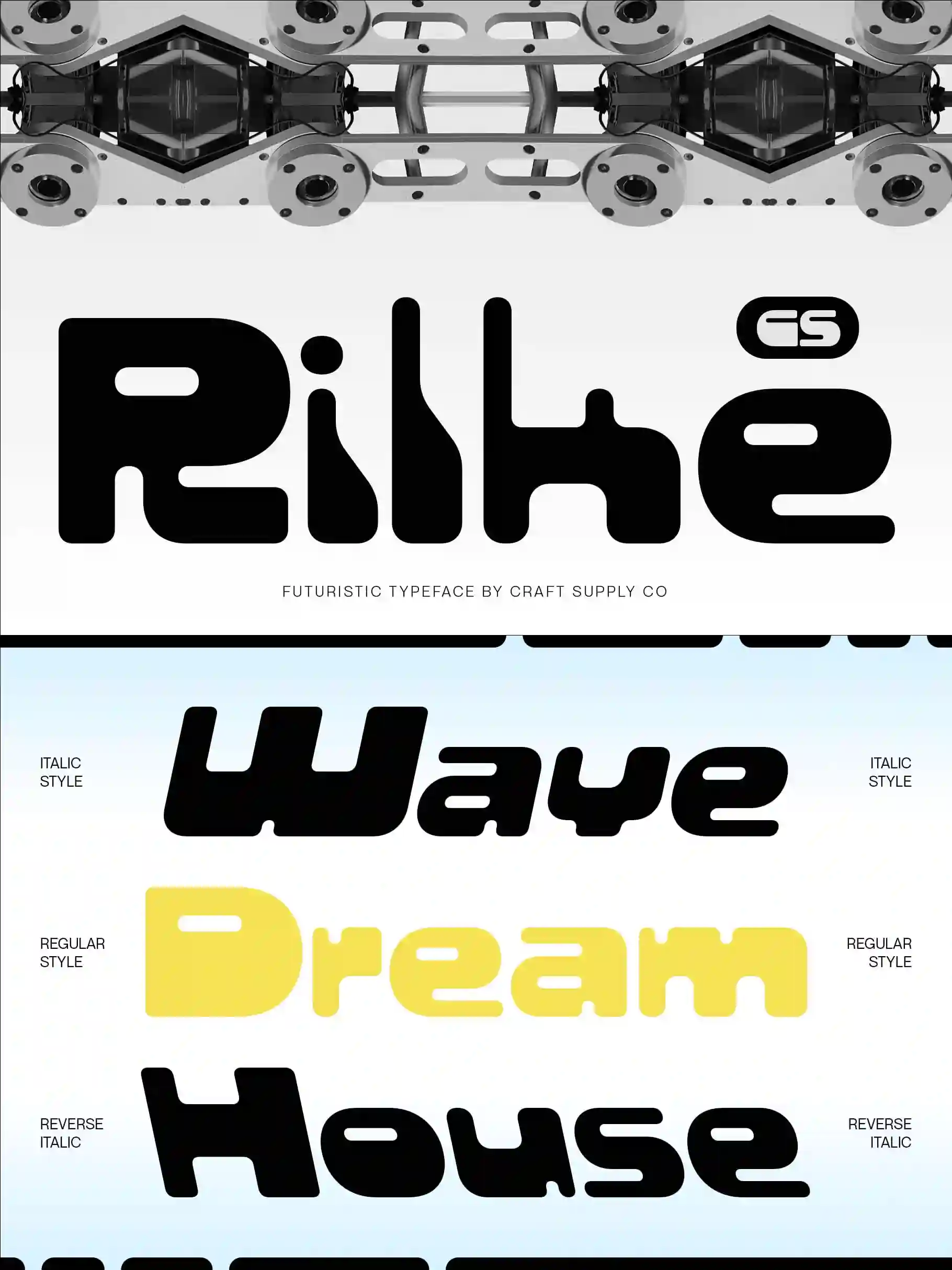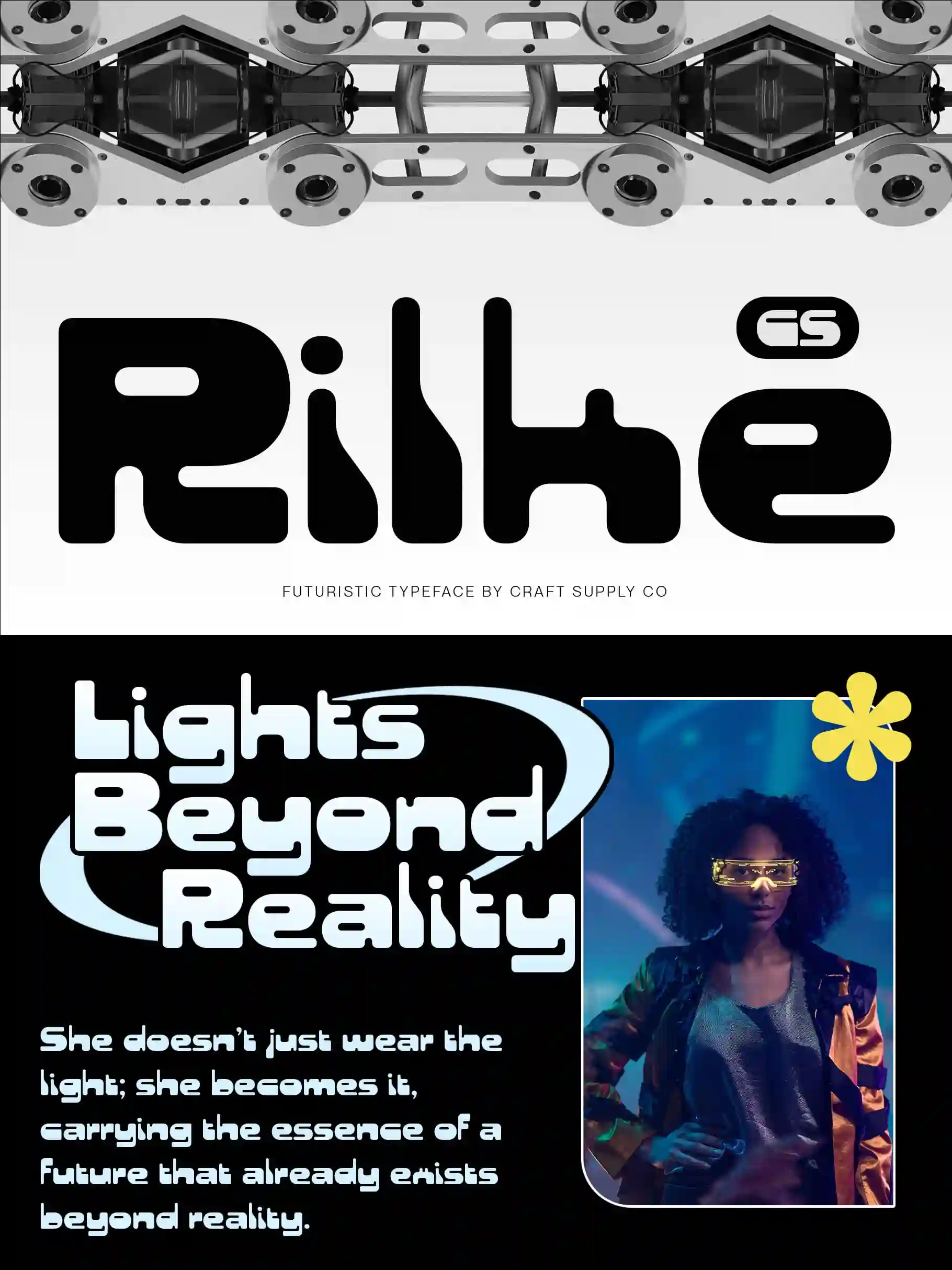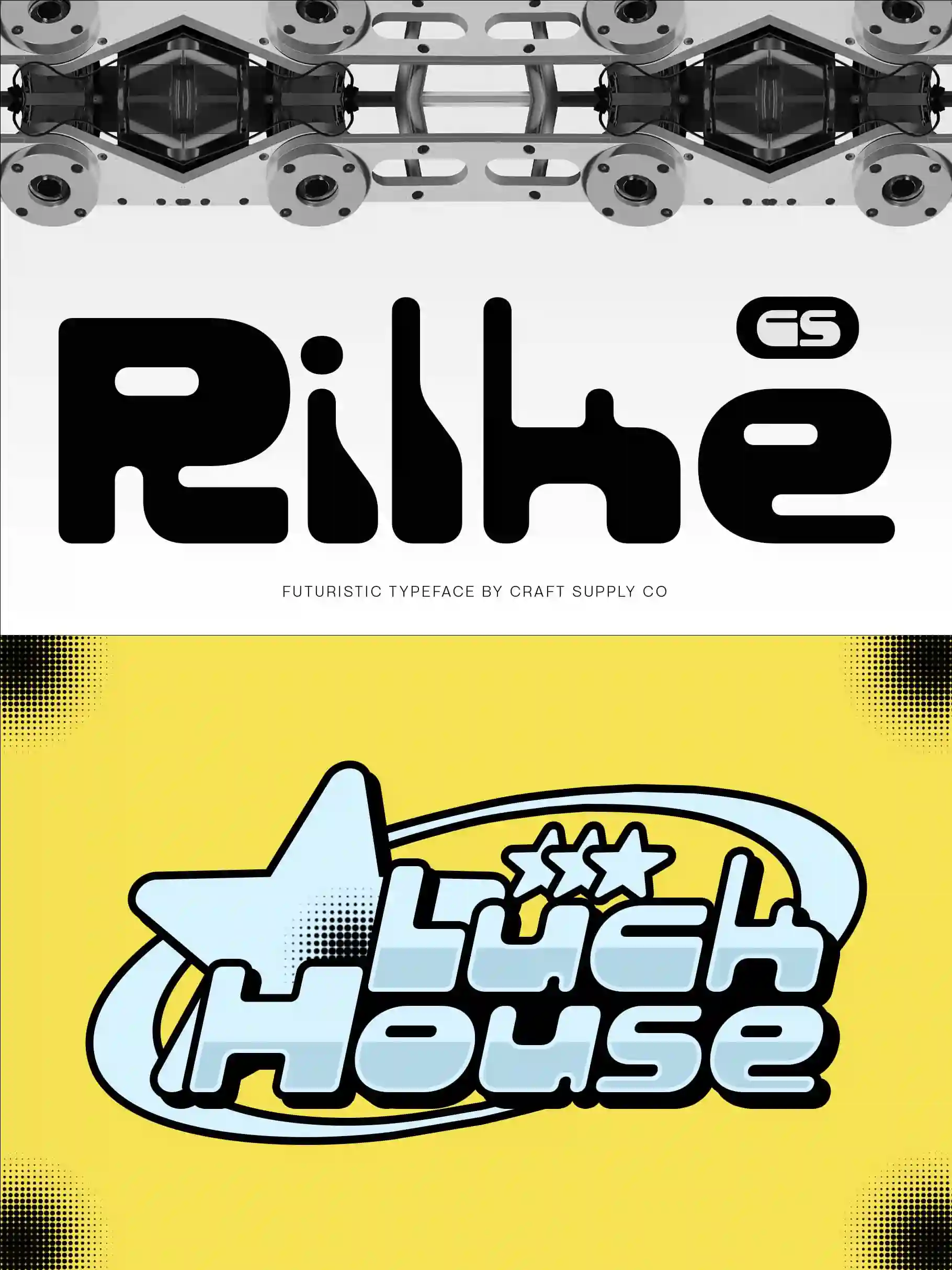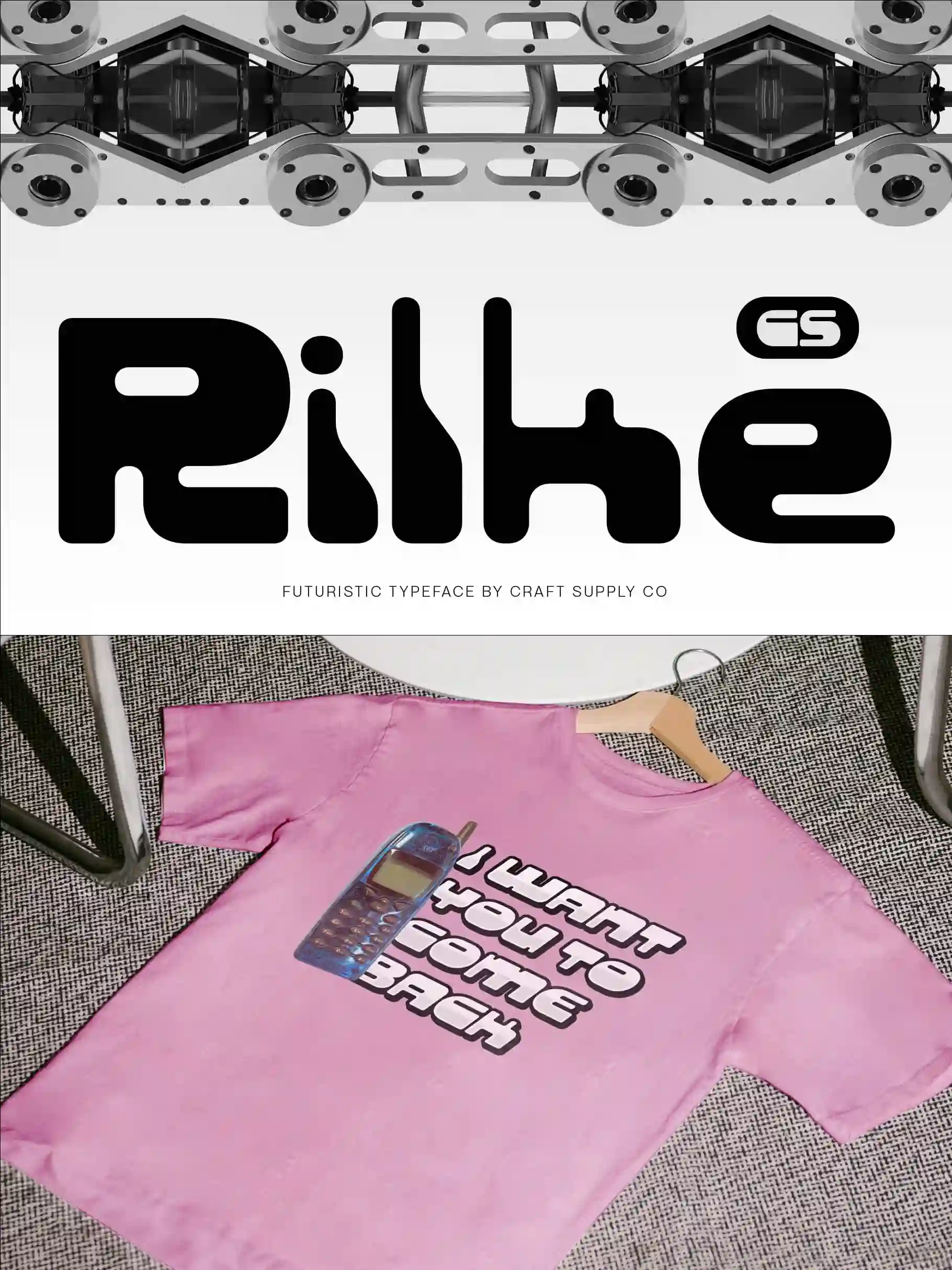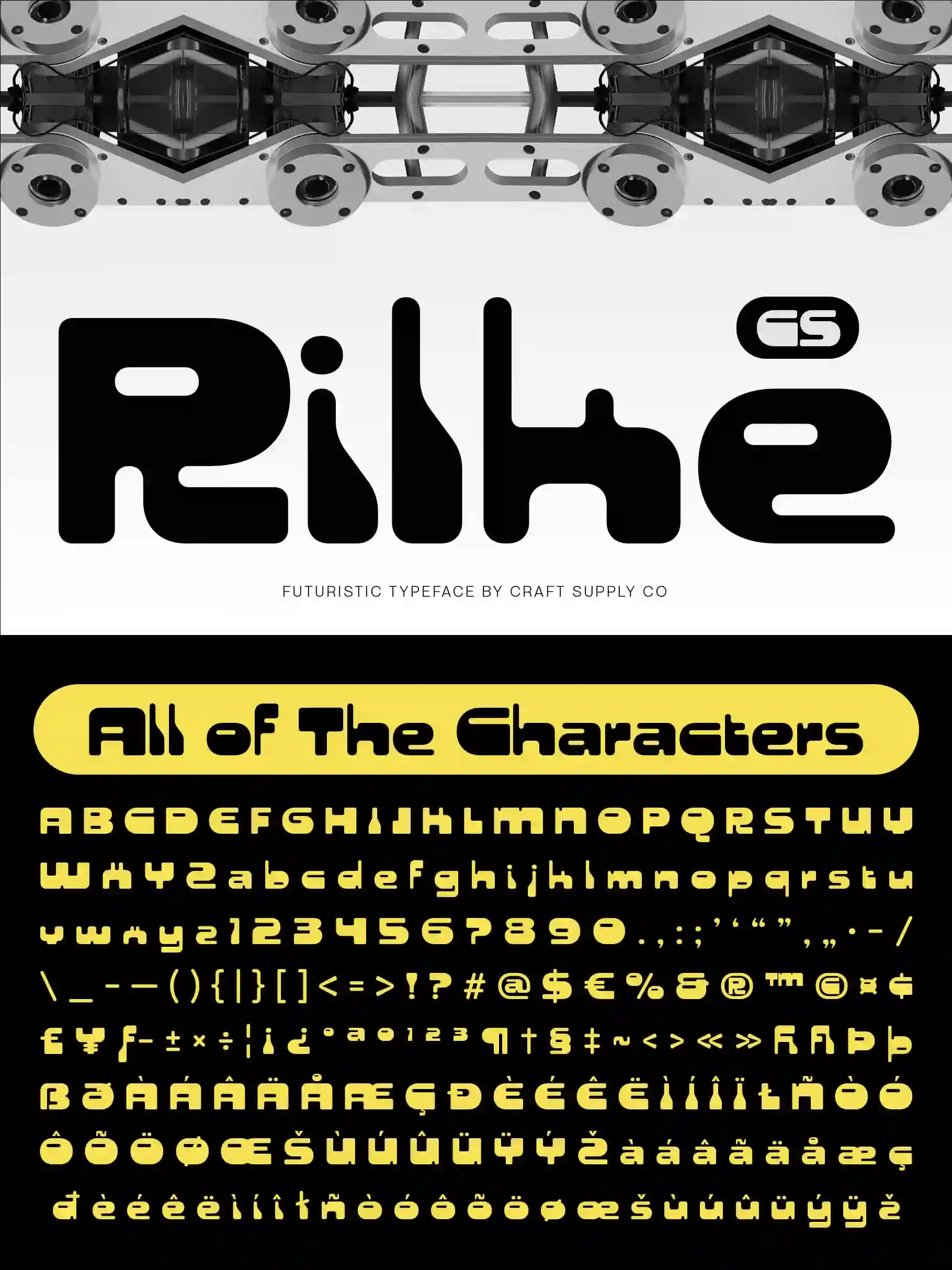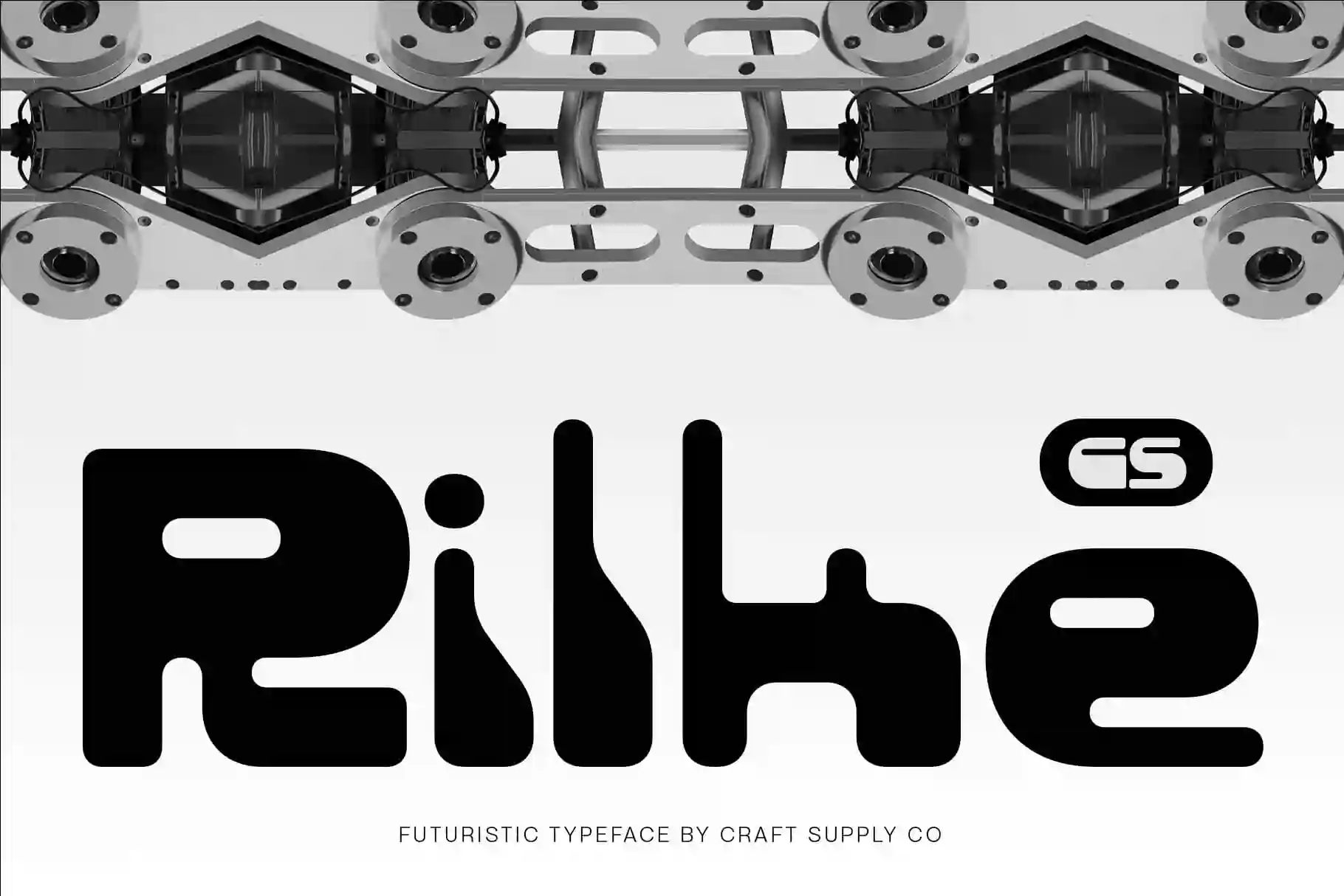
CS Rilke – Futuristic Display Font
Bold Geometric Font with Digital Edge
Futuristic Style with a Y2K Twist
CS Rilke is a futuristic display font infused with a Y2K-inspired aesthetic, bringing a bold and stylish edge to modern design. Its sharp structure and contemporary flow make it perfect for projects that want to capture the energy of digital culture and forward-looking creativity.
Bold and Geometric Design
With strong, blocky forms and geometric precision, CS Rilke commands attention in any setting. Its structural weight makes it ideal for impactful headlines, powerful logos, and striking layouts. The font’s design reflects both technological advancement and the playful nostalgia of early 2000s aesthetics.